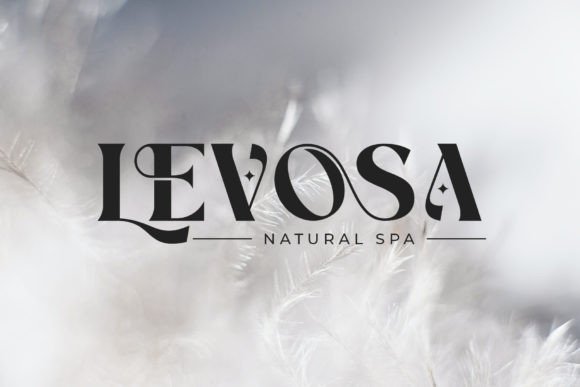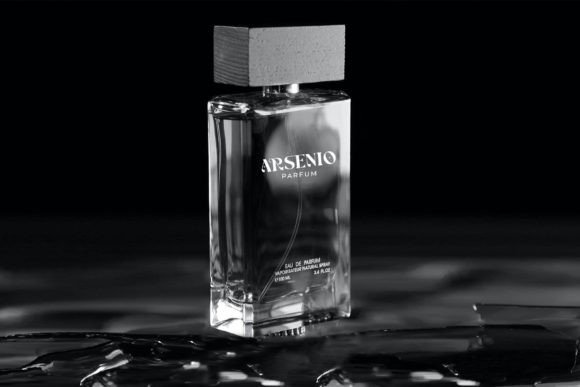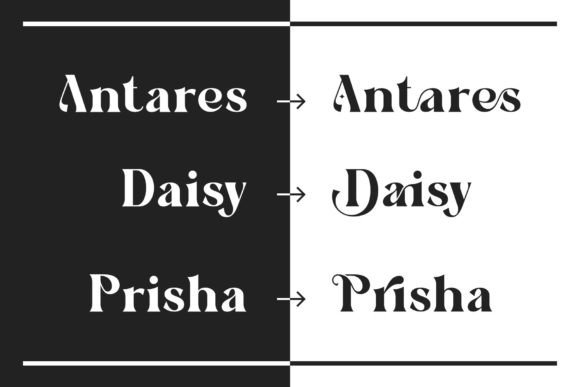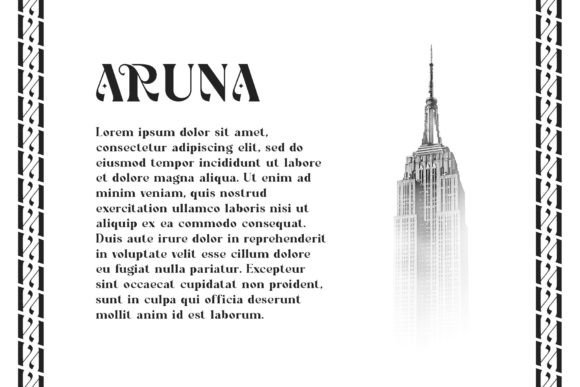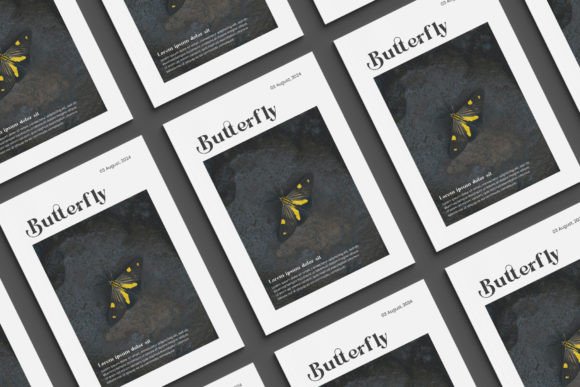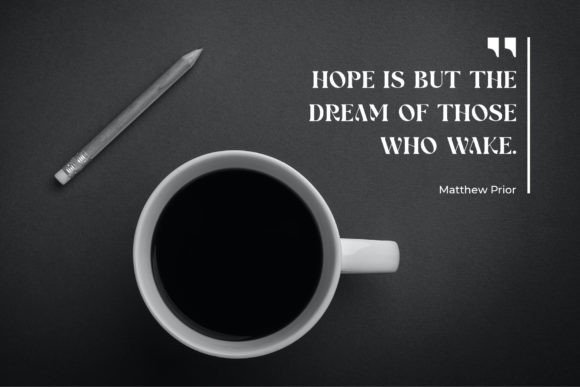
Introduction to Novaria Font
As a designer, have you ever found yourself scrolling through font collections, searching for the perfect match for your creative project? The moment you stumble upon the perfect font is always a thrilling experience, and for many designers, that moment is when they discover the Novaria Font. This elegant serif font has been a game-changer in the design world, and its popularity continues to soar.
With its smooth, balanced, and stylish design, Novaria Font is the ultimate design resource for any creative project. Whether you’re working on an invitation card, a company logo, or a movie title, this font is sure to add a touch of sophistication and elegance. Its high-quality design makes it a valuable asset for designers, and the best part? It’s available for free download, making it an accessible resource for designers of all levels.
What sets Novaria Font apart is its ability to seamlessly blend with any design background, from a transparent background to a busy layout. Its versatility and style make it a must-have for any designer’s toolkit, and its free download option makes it a valuable resource for designers looking to elevate their creative projects.
Key Features of Novaria Font
- Unique, hand-drawn design with a creative touch, perfect for artistic projects and personal expression.
- High-quality font with transparent background, ideal for designers looking for a design resource that stands out.
- Features a large character set, including uppercase and lowercase letters, numbers, and punctuation marks, making it suitable for a wide range of creative projects.
Honest Review: Novaria Font
I recently had the opportunity to try out the Novaria Font, and I must say it’s been a game-changer for my creative projects. This font is a valuable design resource that offers a unique blend of elegance and sophistication.
What works well: ✨ The Novaria Font offers a transparent background option, which allows for seamless integration with any design element. The high-quality design is perfect for both digital and print projects, making it a versatile choice for designers. The font also features a wide range of weights and styles, making it easy to find the perfect fit for your project.
What I like most about the Novaria Font is its versatility. Whether you’re working on a simple brochure or a complex branding project, this font is sure to deliver.
Overall, I’m thoroughly impressed with the Novaria Font. It’s a high-quality design resource that’s perfect for designers looking to add a touch of sophistication to their projects. With its transparent background option and wide range of styles, it’s a must-have for any creative project.
- Wide range of weights and styles
- Perfect for digital and print projects
Novaria Font
The Novaria Font is ideal for a variety of creative projects, including logos, graphics, and presentations. It’s also perfect for designers who want to add a unique touch to their designs without breaking the bank.